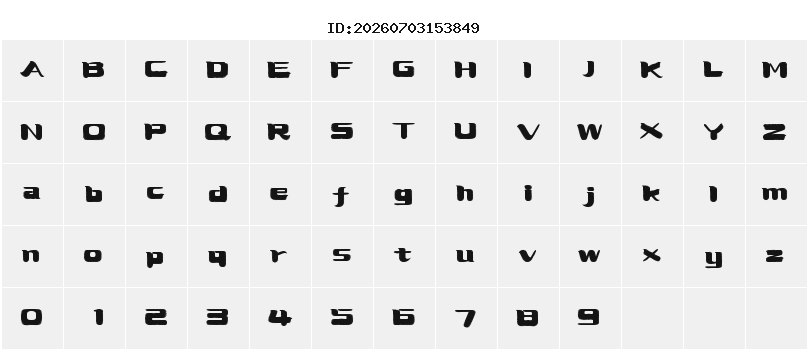
346-上首墨白体 Preview
• Font Name: 346-上首墨白体
• Font ID: 346-上首墨白体:Version 4.000
• Full Font Name: 346-上首墨白体
• Version: Version 4.00;August 14, 2024;FontCreator 13.0.0.2613 64-bit
• PostScript Name: 346SSMoBaiTi
• Character Count: 7566
• Manufacturer: 上首造字
About 346-上首墨白体.ttf
346-上首墨白体.ttf is a modern, elegant sans-serif font designed for ultimate readability and visual harmony. Perfect for branding, headlines, web design, and print materials.